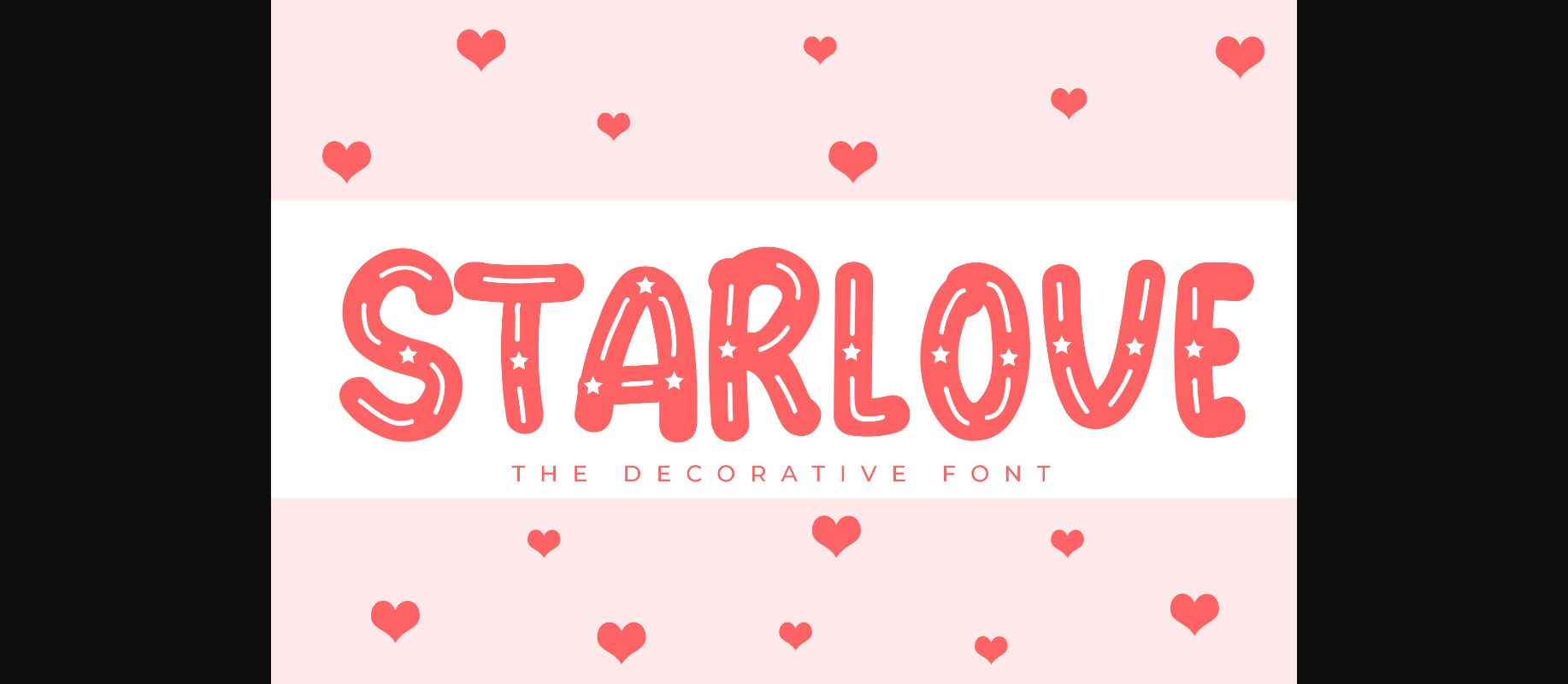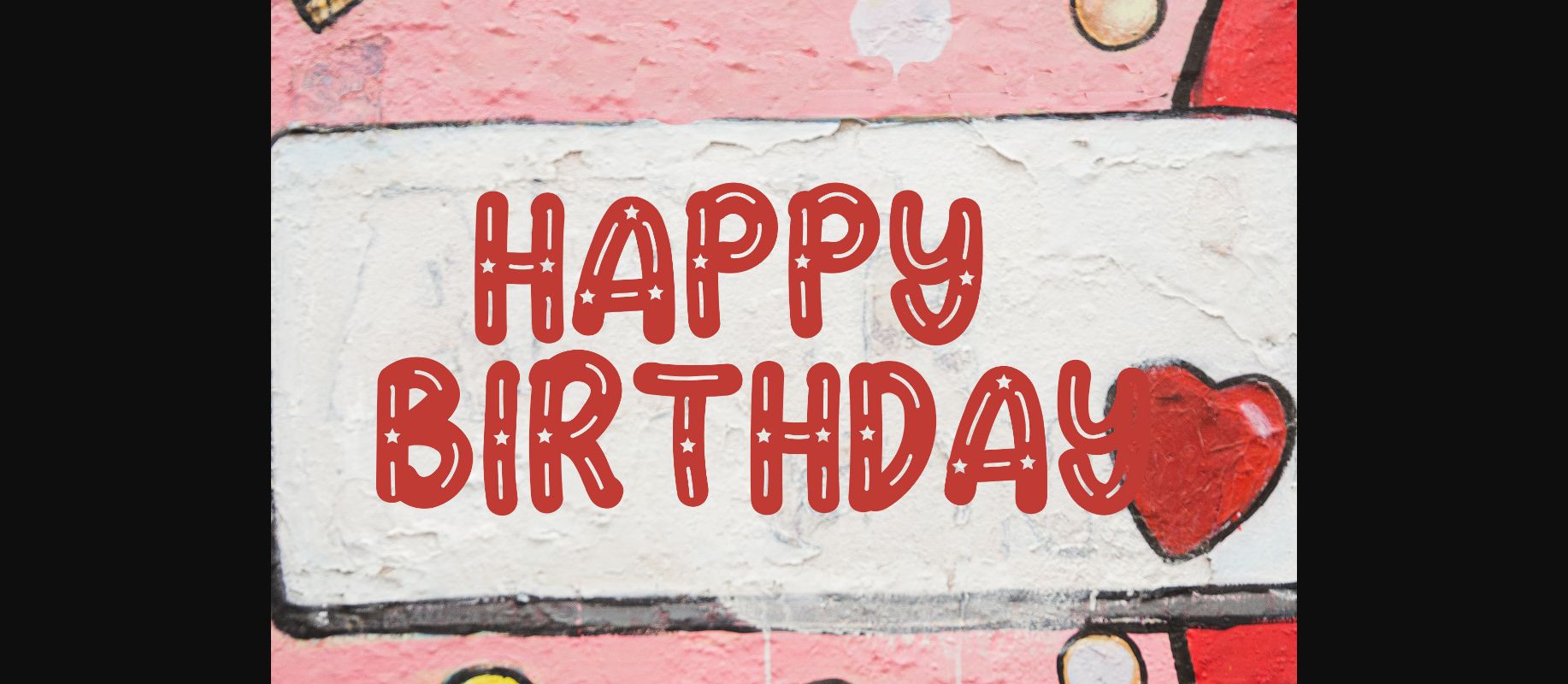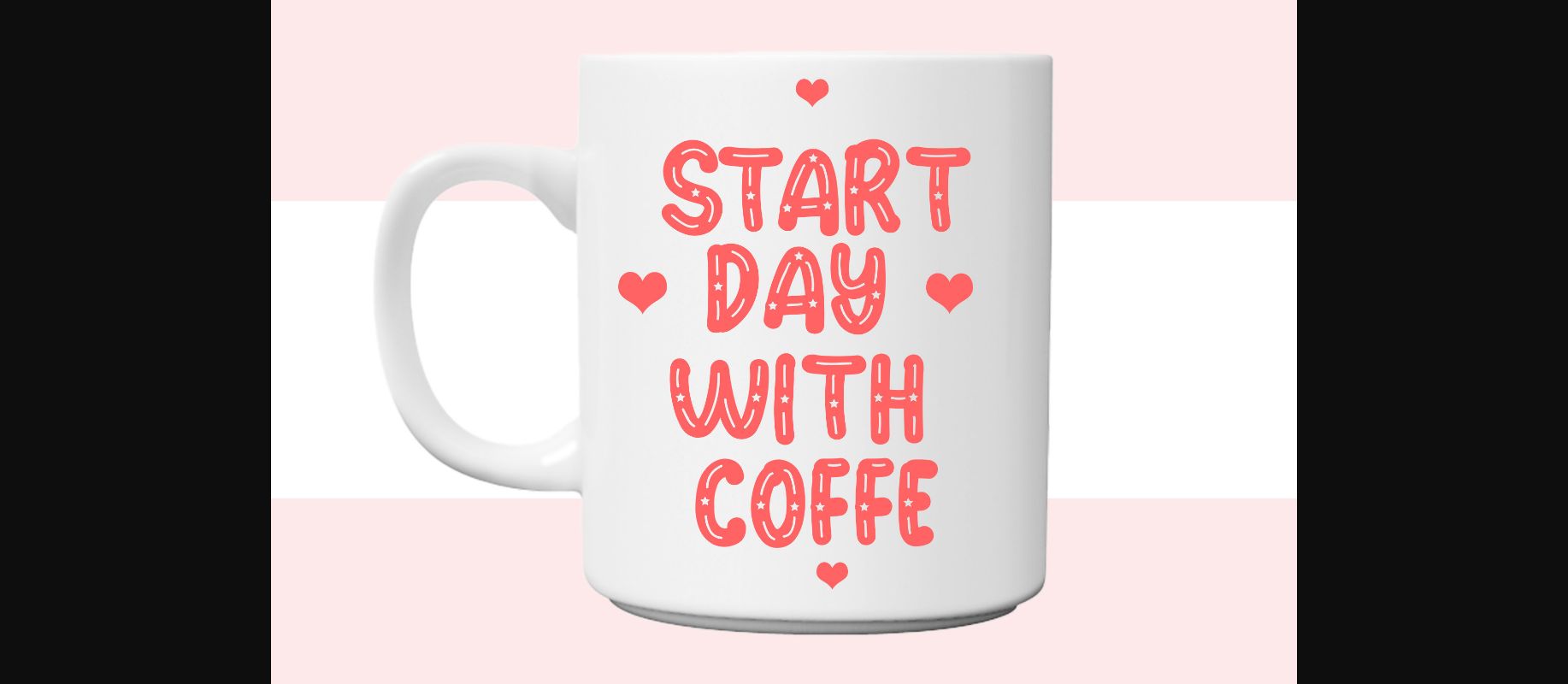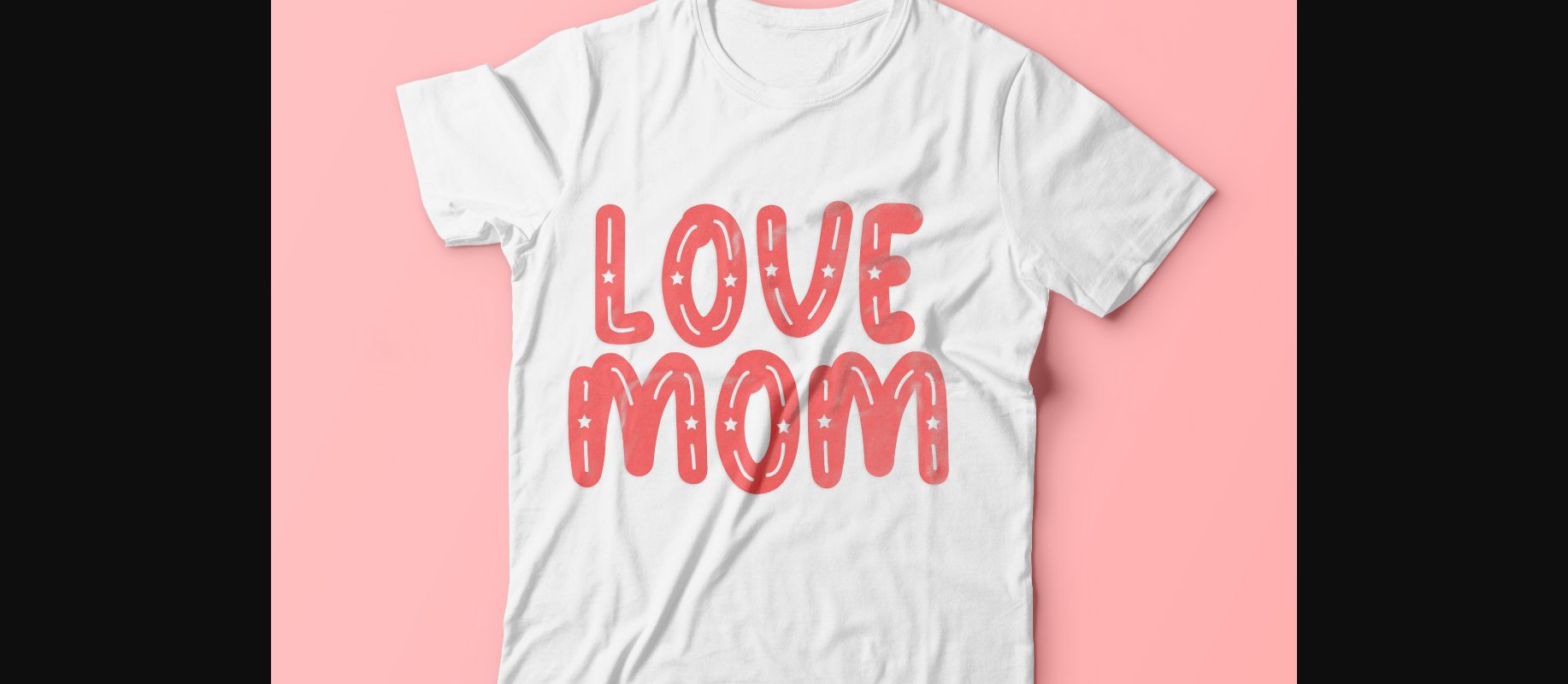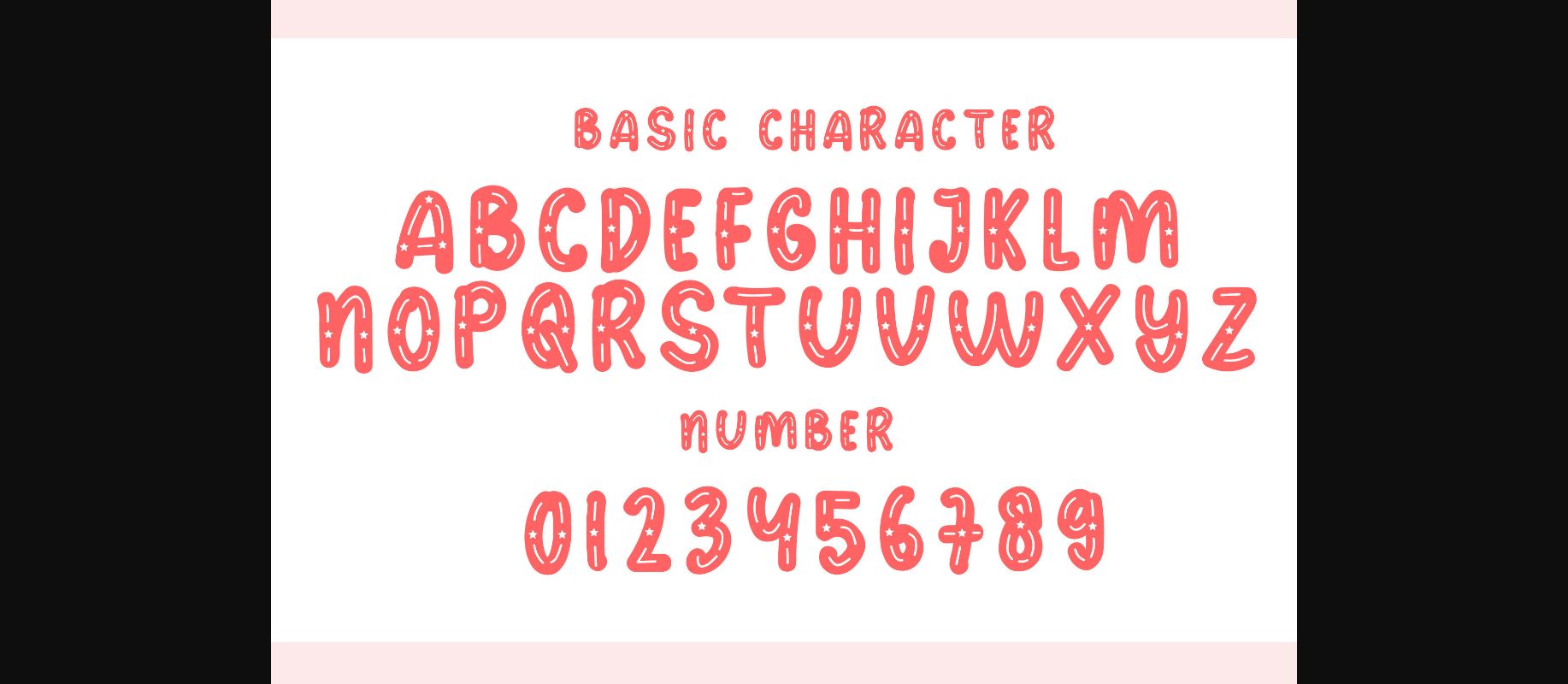
About Starlove Font
Starlove is a cute and playful decorative font featuring unique characters that give off a friendly vibe. It is suitable for logos, branding, packaging, crafts, and any other ideas that need cute shapes and a friendly typeface!